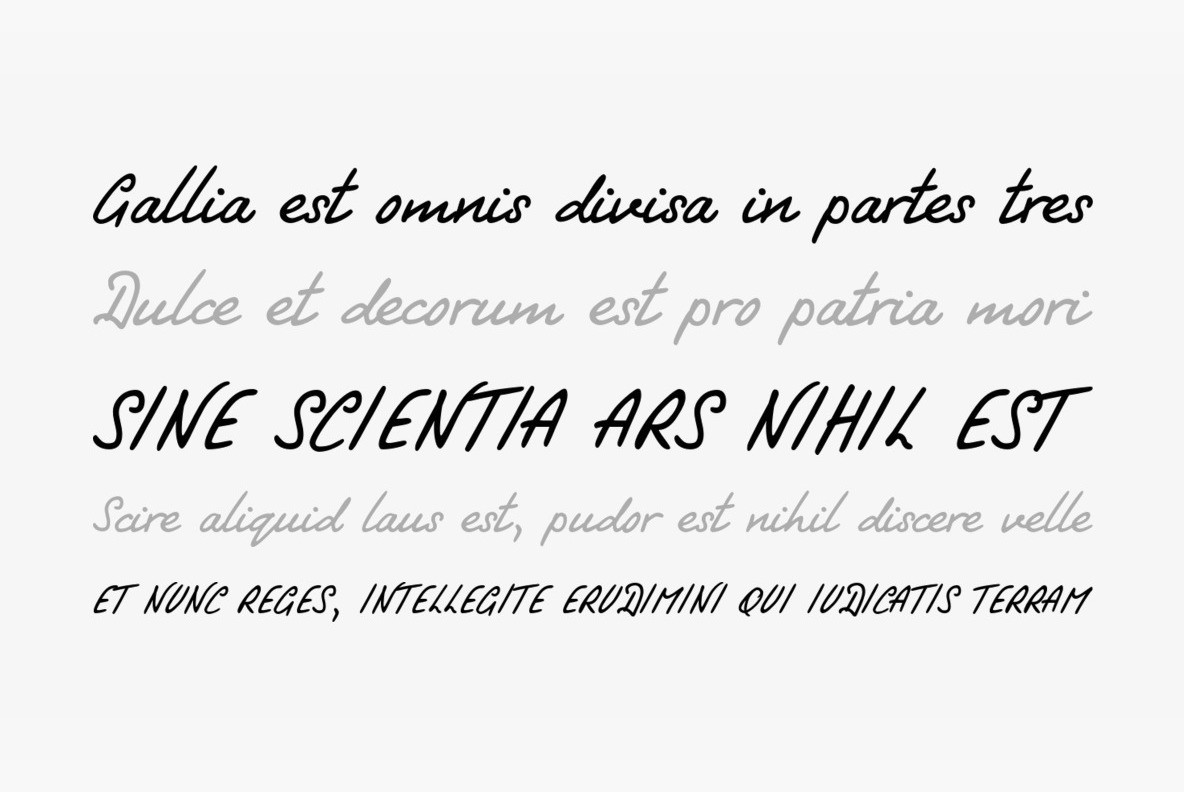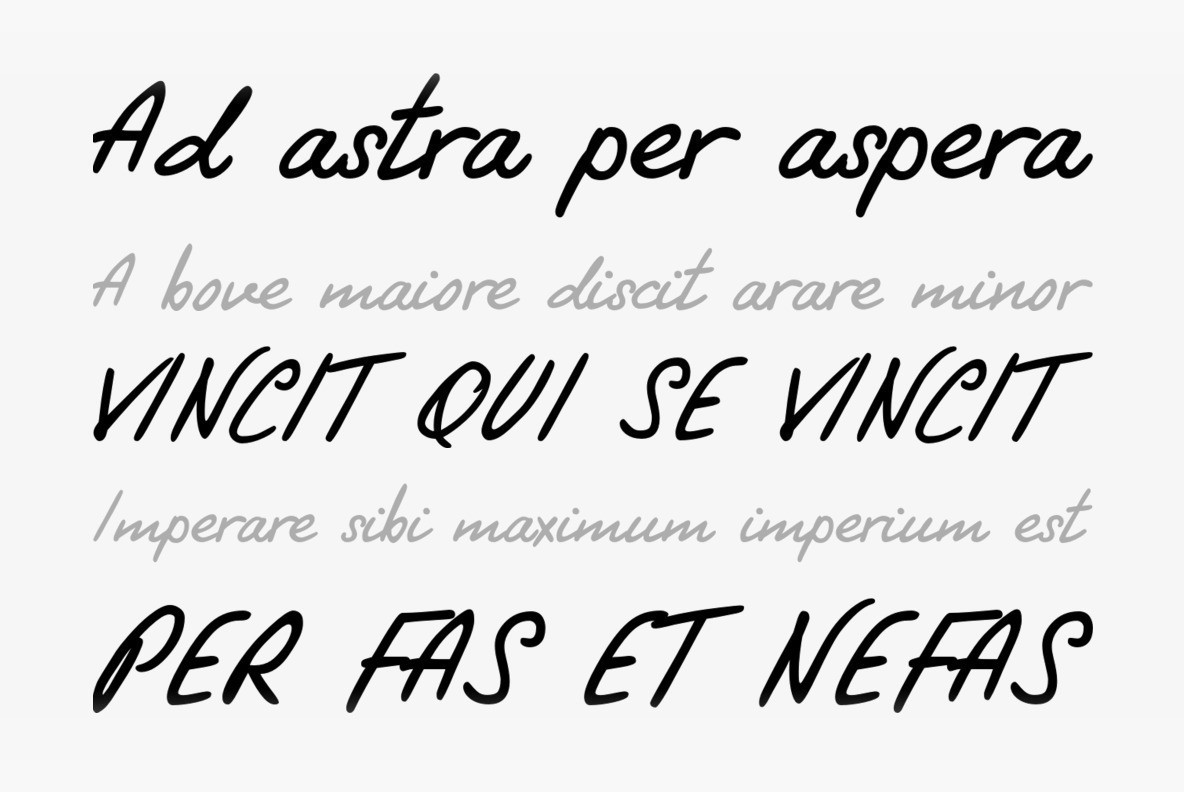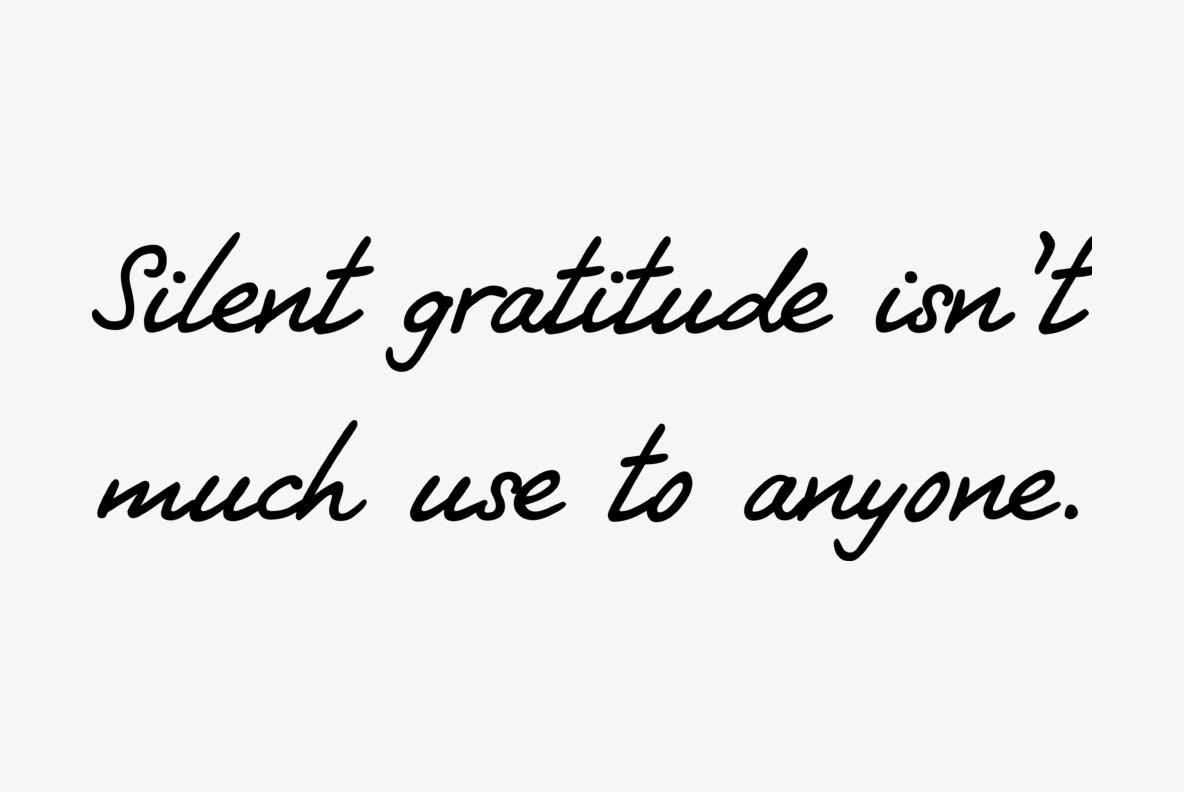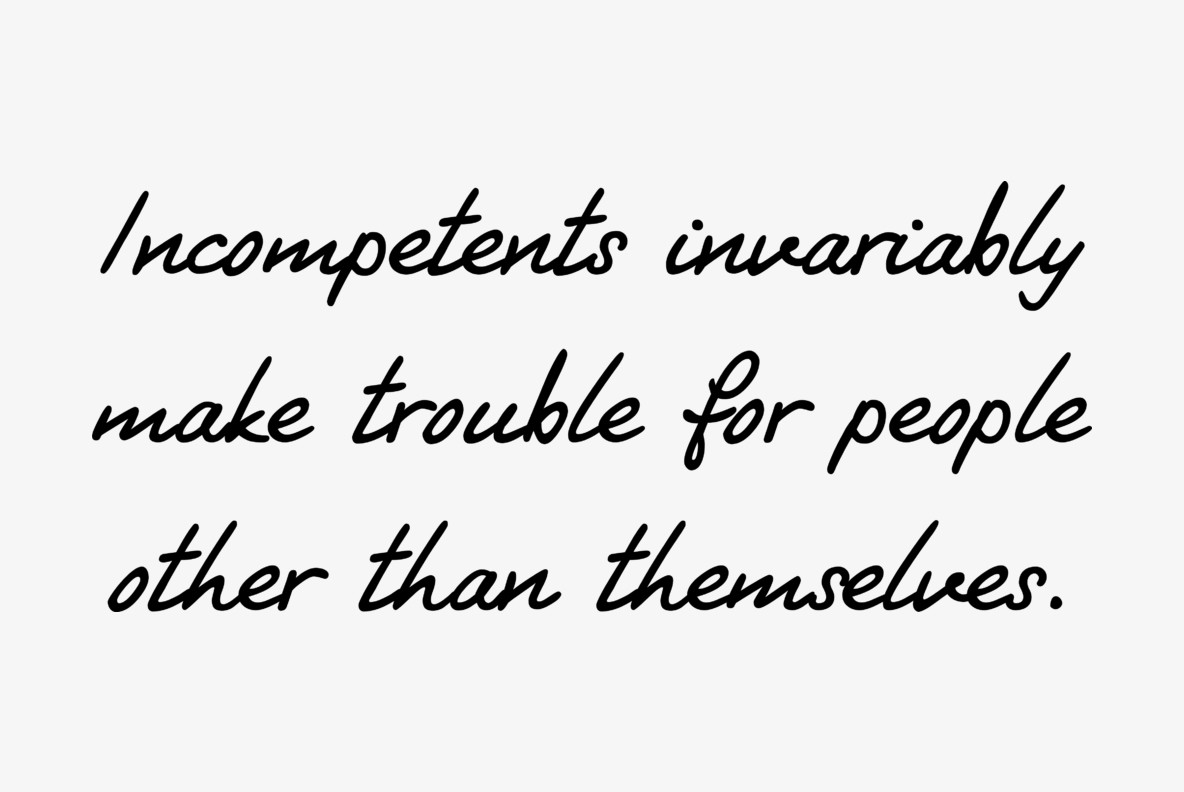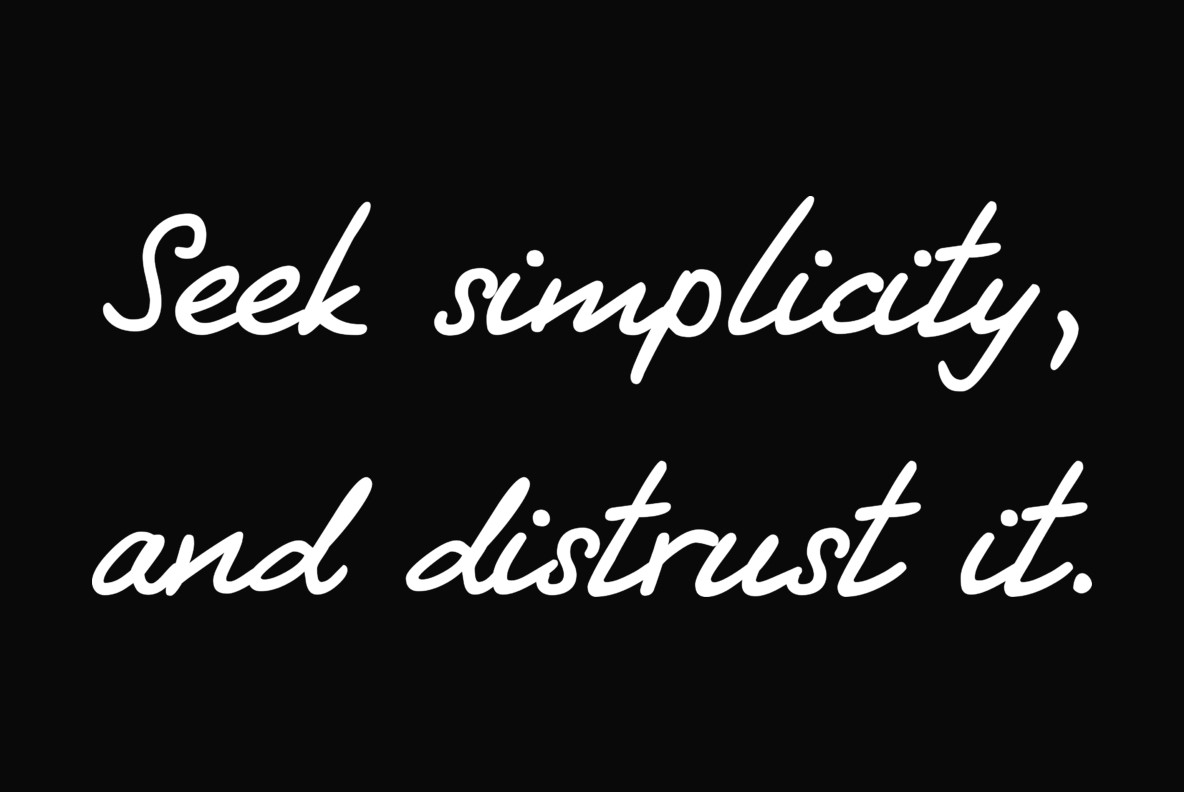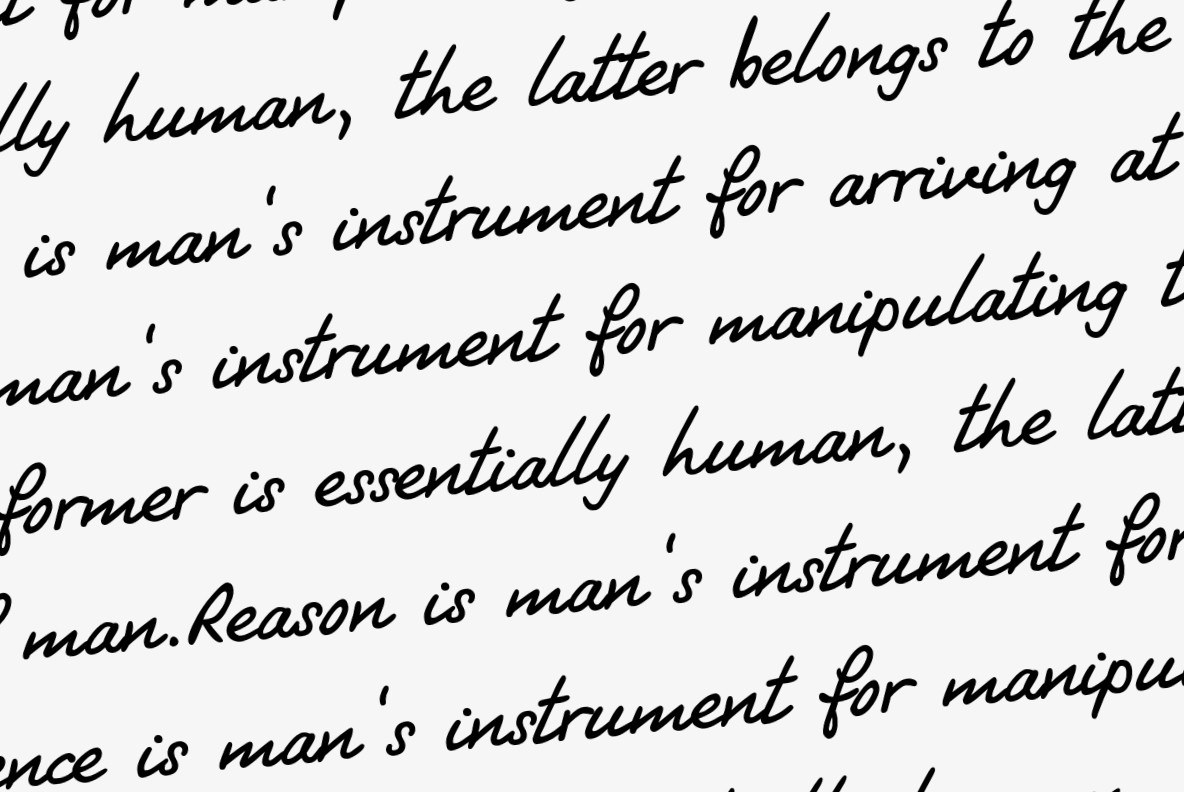
Stream Font
Stream
Script Stream was developed for the series of handwriting fonts based on the writing samples of real people. The font delivers natural sincere touch and can magically convert any annoying advertising text into intimate advice of your good friend. The first version of the font in Latin was released in 1998. It was extended by Cyrillic (designer Gennady Fridman) and rereleased in 2013.